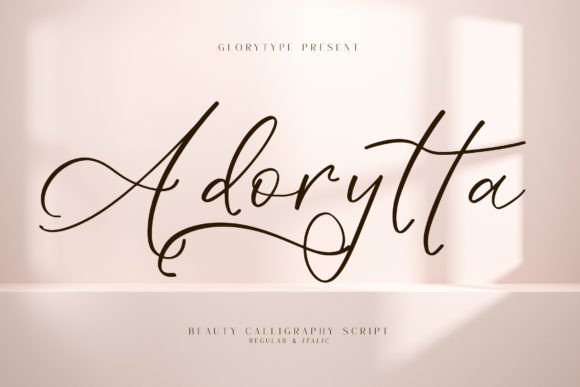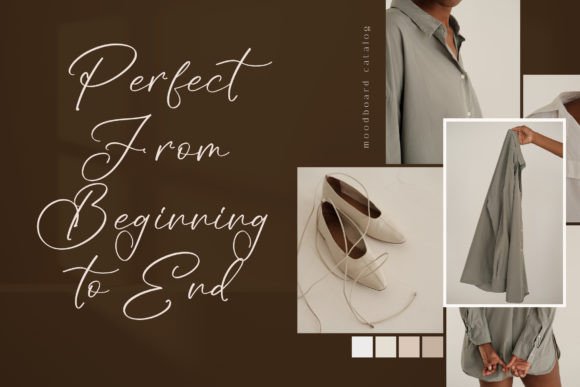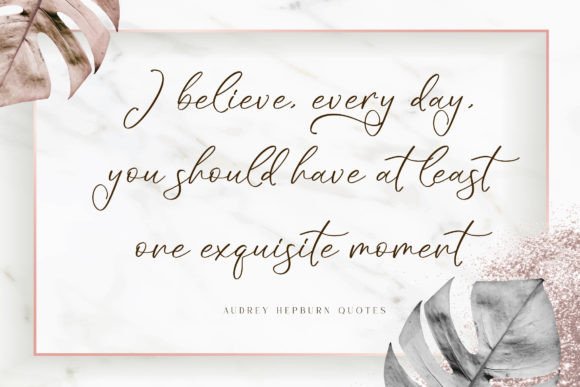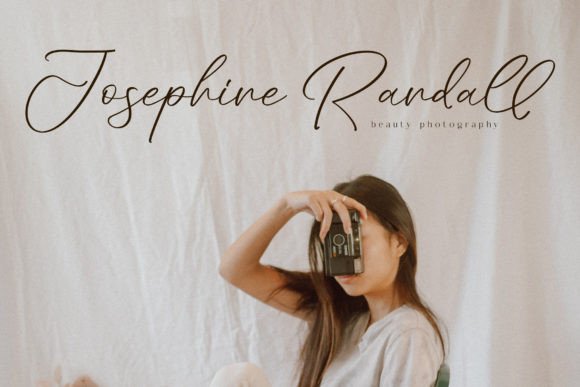
Adorytta Font: Elegant Calligraphy Script for Branding & Wedding Design
About the Adorytta Font
Get ready to be inspired by Adorytta Font, a fresh and dynamic typeface for modern creators. Adorytta is a modern, delicate, and flowing handwritten font. Use this font for various design ideas such as mugs, t-shirt designs, eye-catching logo designs, greeting cards, and many more. This font will add a cute touch to your designs.
Adorytta’s delicate nature makes it ideal for branding projects requiring a touch of elegance, particularly logos, short taglines, and social media graphics. It also works well on packaging for products targeting a feminine or youthful audience, such as cosmetics or stationery. However, its flowing script style is less suitable for large amounts of body text or UI elements where readability is paramount. Avoid using it for long paragraphs or website copy.
Consider pairing Adorytta with a clean sans-serif like Lato or Open Sans for a balanced and modern feel, or a classic serif like Garamond for a touch of sophistication. A geometric sans-serif could provide a striking contrast, while a playful script could enhance its whimsical nature, depending on the desired outcome.
Its overall personality is best described as feminine, friendly, and subtly playful; making it a versatile choice for projects needing a lighthearted yet refined aesthetic.
Adorytta Font Usage Examples
Adorytta Font Example